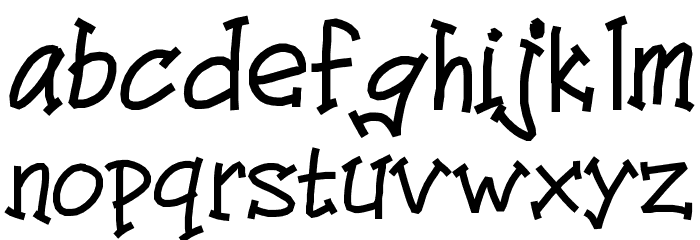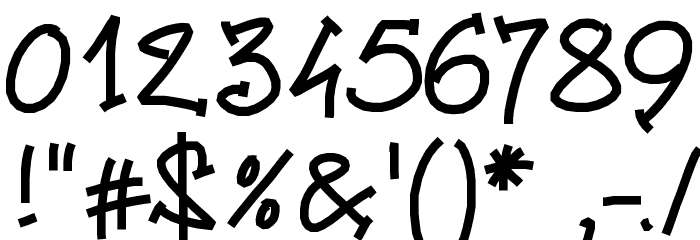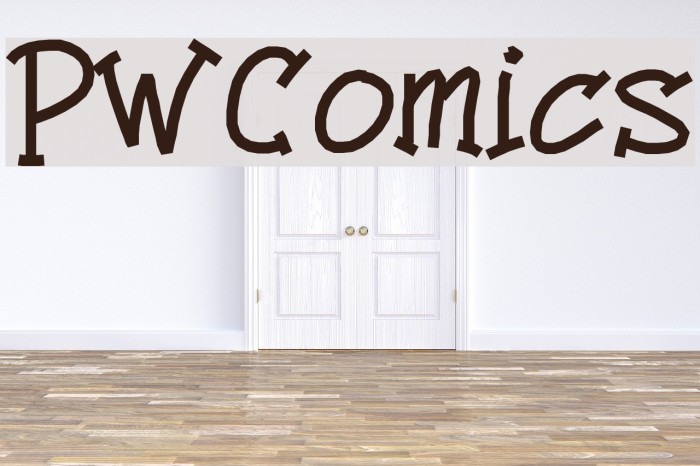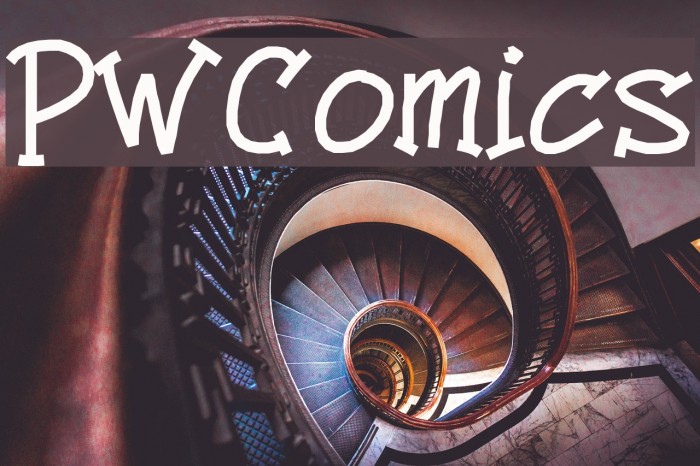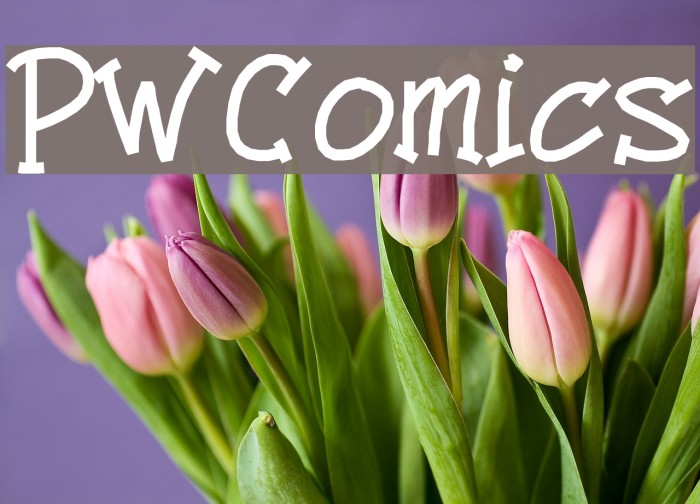
PWComics Font
This playful and energetic font features a hand-drawn, comic-style appearance with irregular, slightly exaggerated strokes. The characters have a whimsical and informal feel, making them ideal for projects that require a fun and approachable aesthetic. The uppercase and lowercase letters maintain a consistent style, with a slight slant and varied line thickness that adds to the dynamic look. The numerals and special characters follow the same lively design, ensuring a cohesive appearance across all text elements.
A playful, comic-style font with a hand-drawn, whimsical appearance.
- Proposed Projects: Ideal for comic books, children's books, playful branding, and informal posters.
- Overall Style: Playful, Informal
- Use Case: Headlines, Posters, Branding